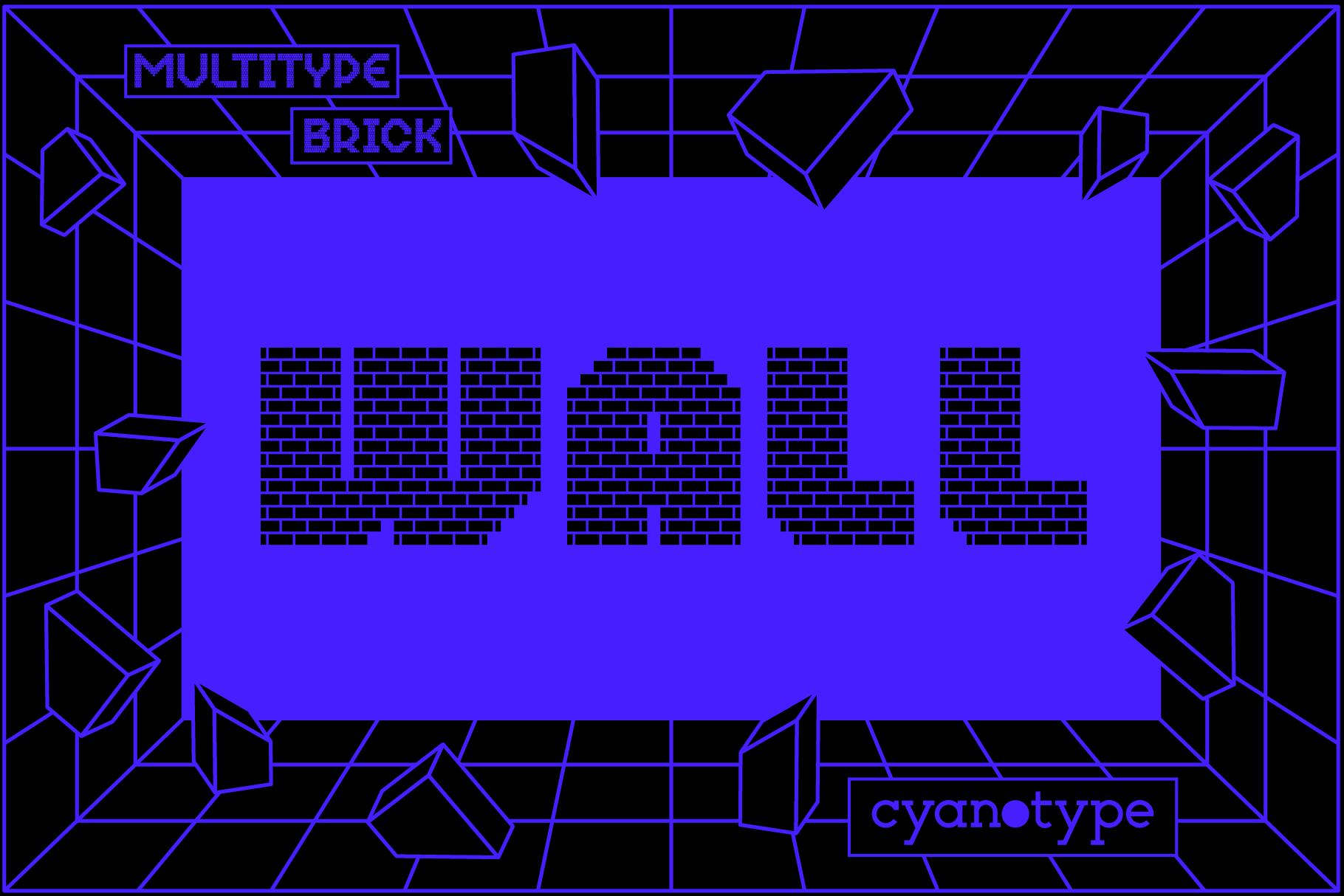
MultiType Brick Wall Font Description
MultiType Brick Wall is a cool font, uniquely shaped, pixelated display font. Add a distorted and trendy touch to your designs with this unusual pixel font! MultiType Brick Wall is PUA encoded which means you can access all glyphs and swashes with ease!